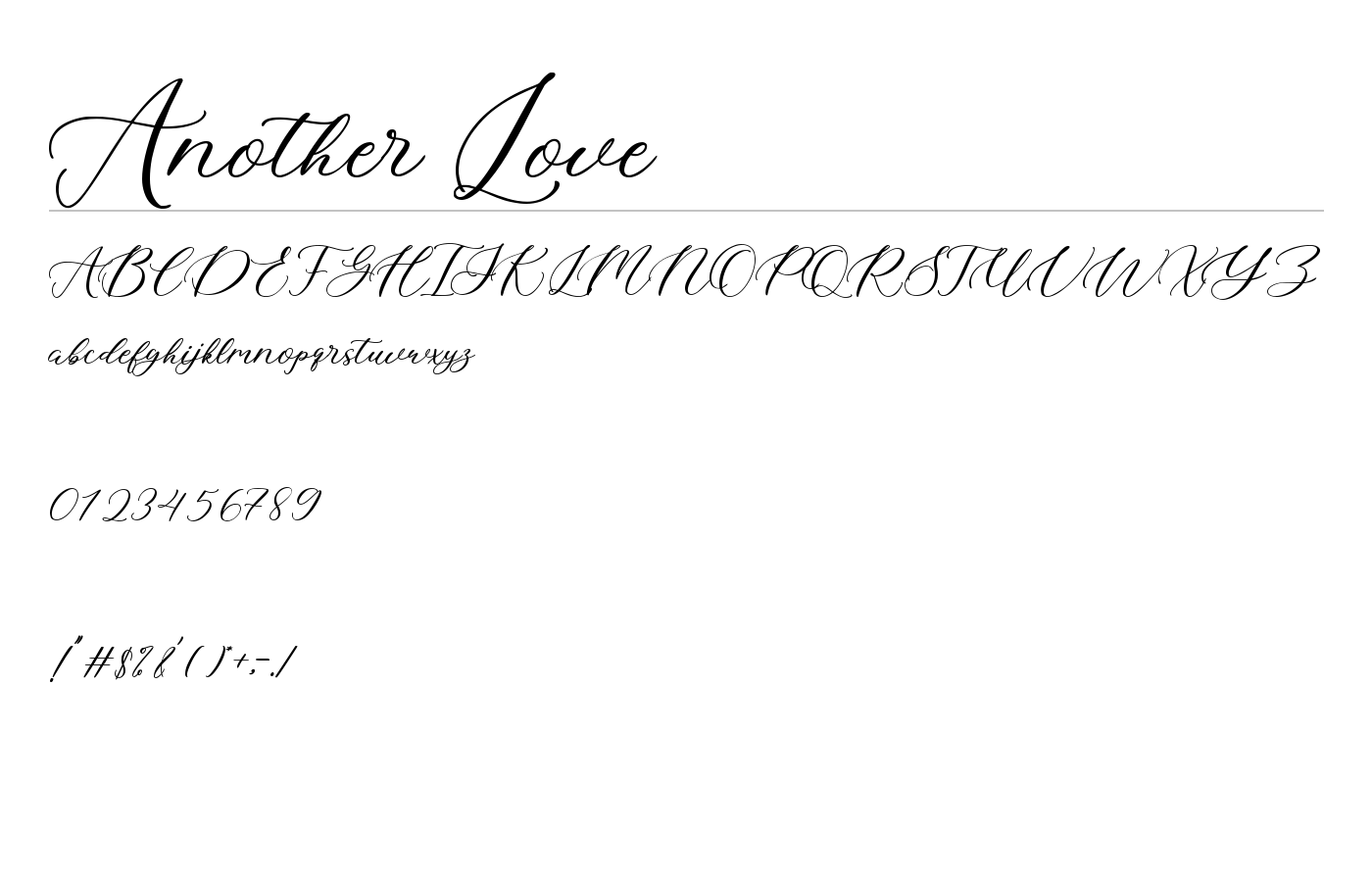
Another Love is a delicate, elegant script font featuring fine, flowing strokes and graceful letterforms that evoke a sense of romance and sophistication. Its light weight and airy structure make it ideal for luxury branding, wedding invitations, and stylish editorial headlines where a refined, handwritten touch is desired. This font’s charming, calligraphic style adds a personal, artistic feel, perfect for projects seeking to convey beauty and elegance.
Another Love Font
About Another Love Font